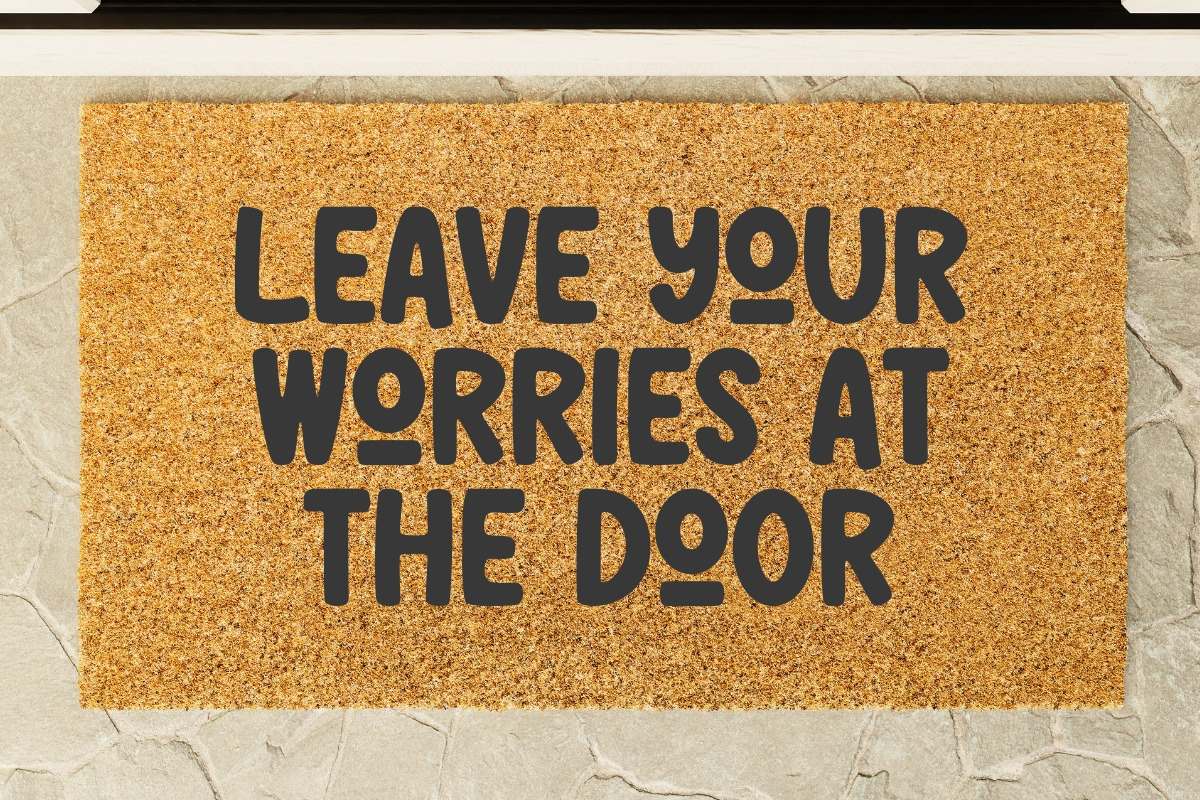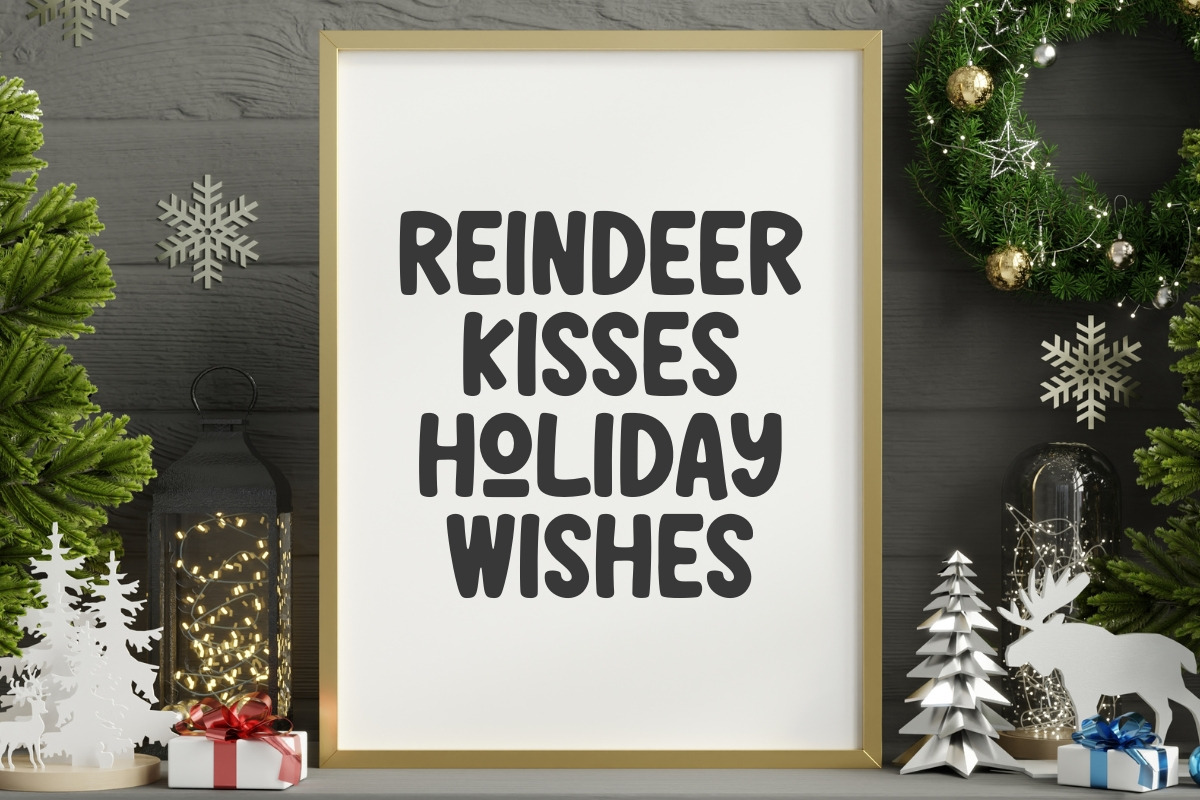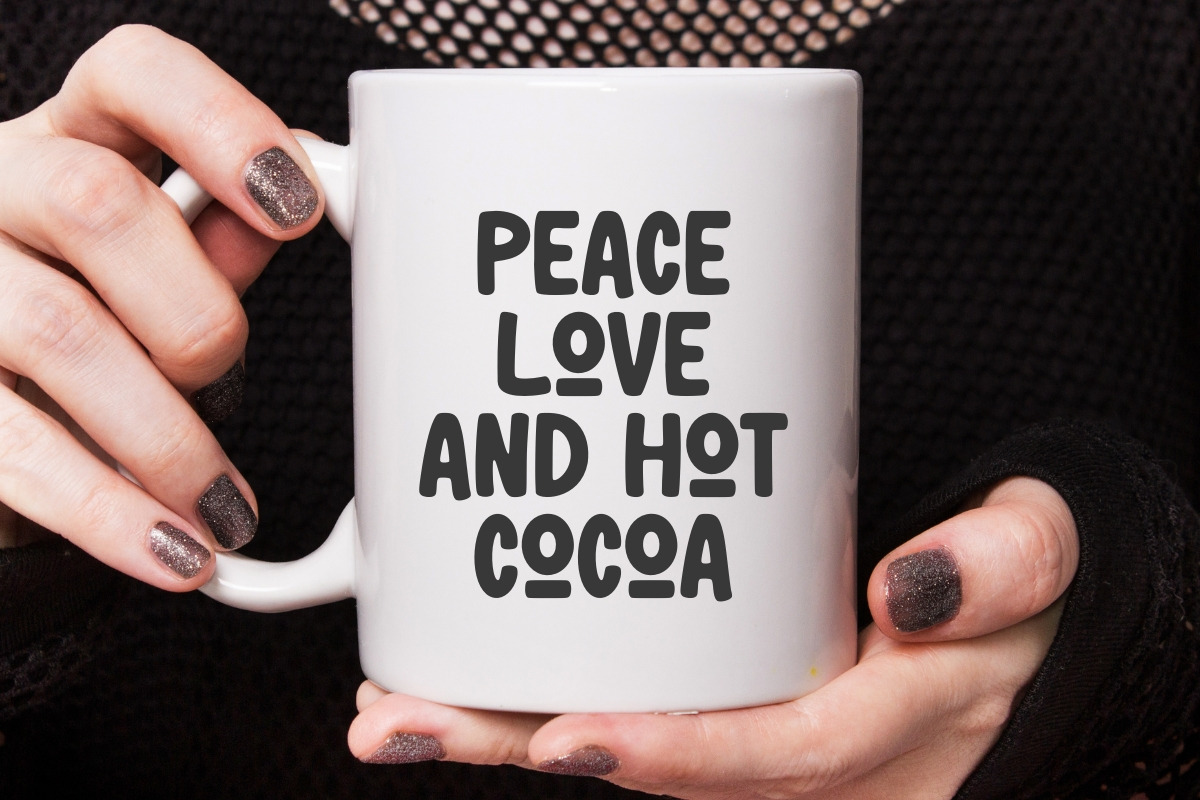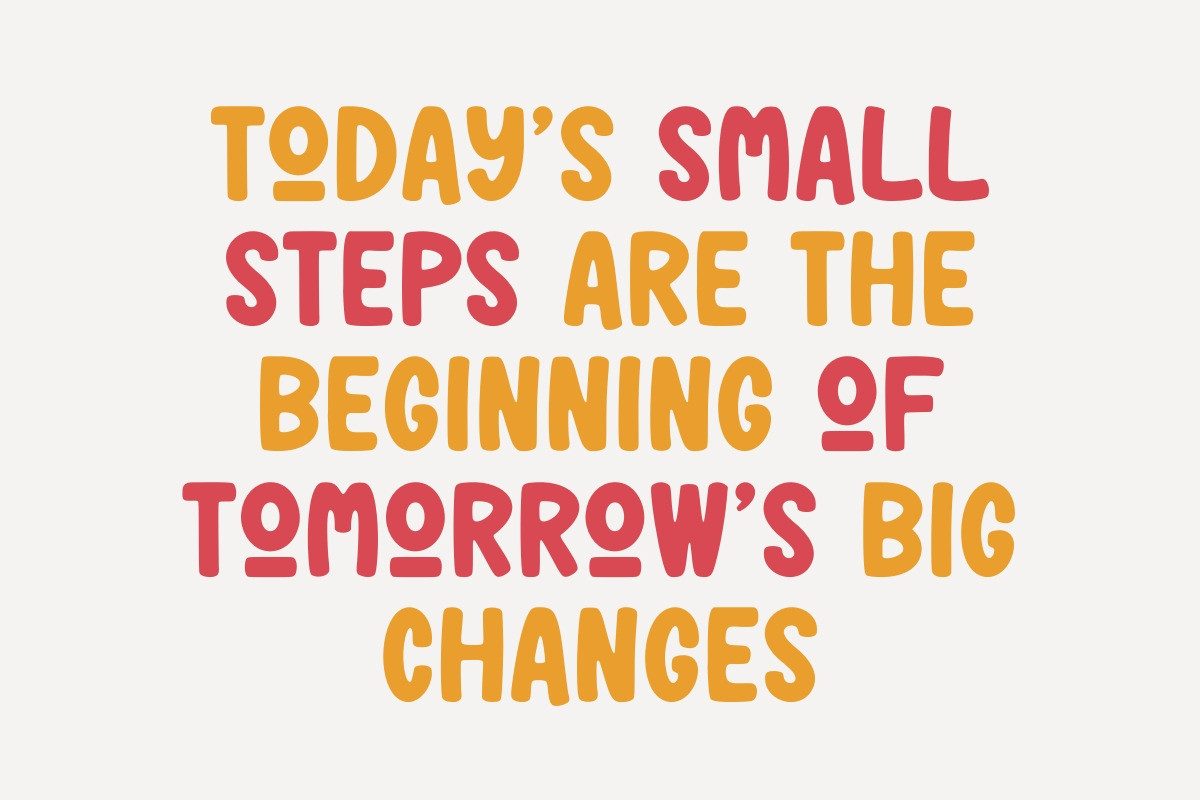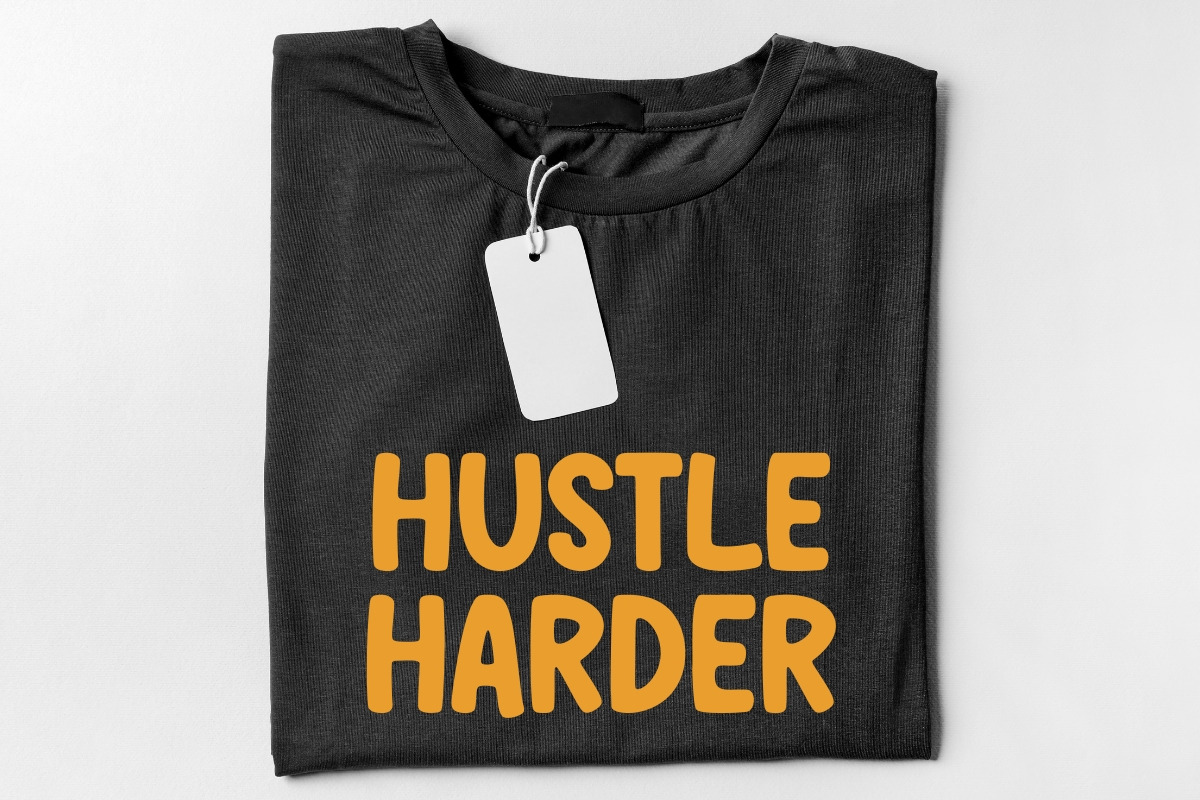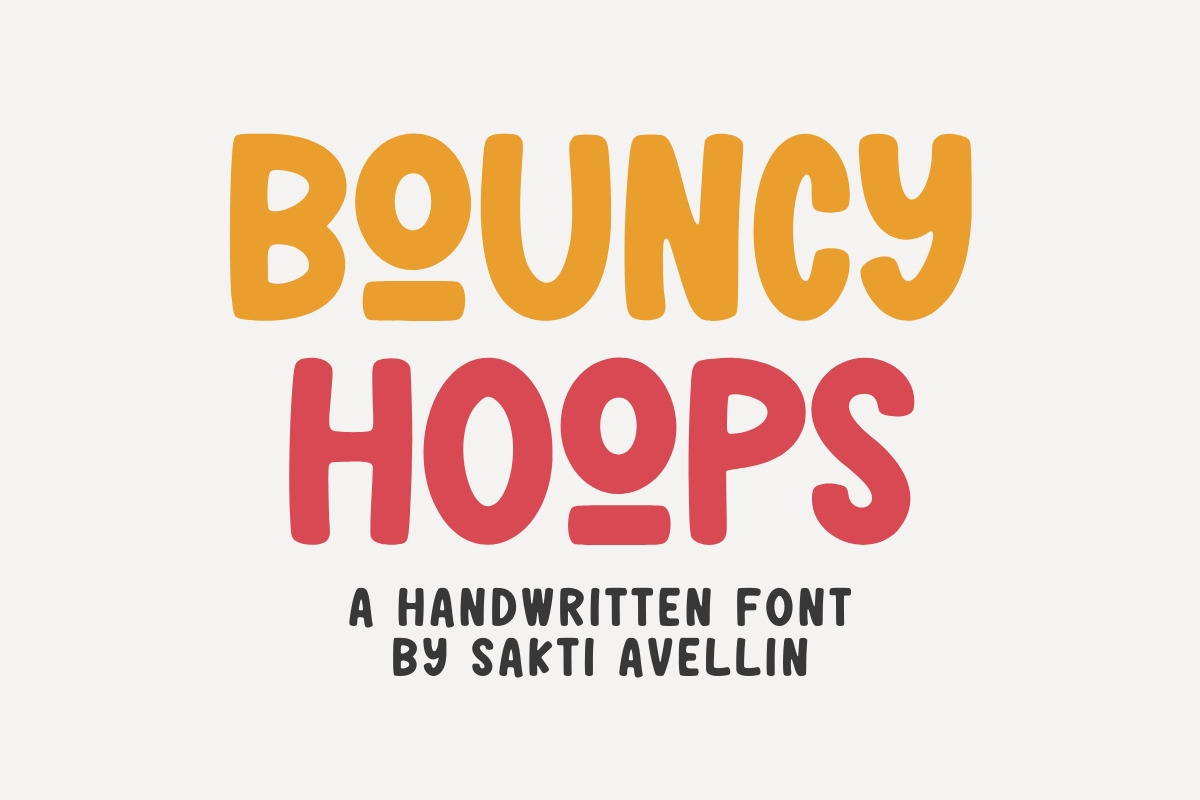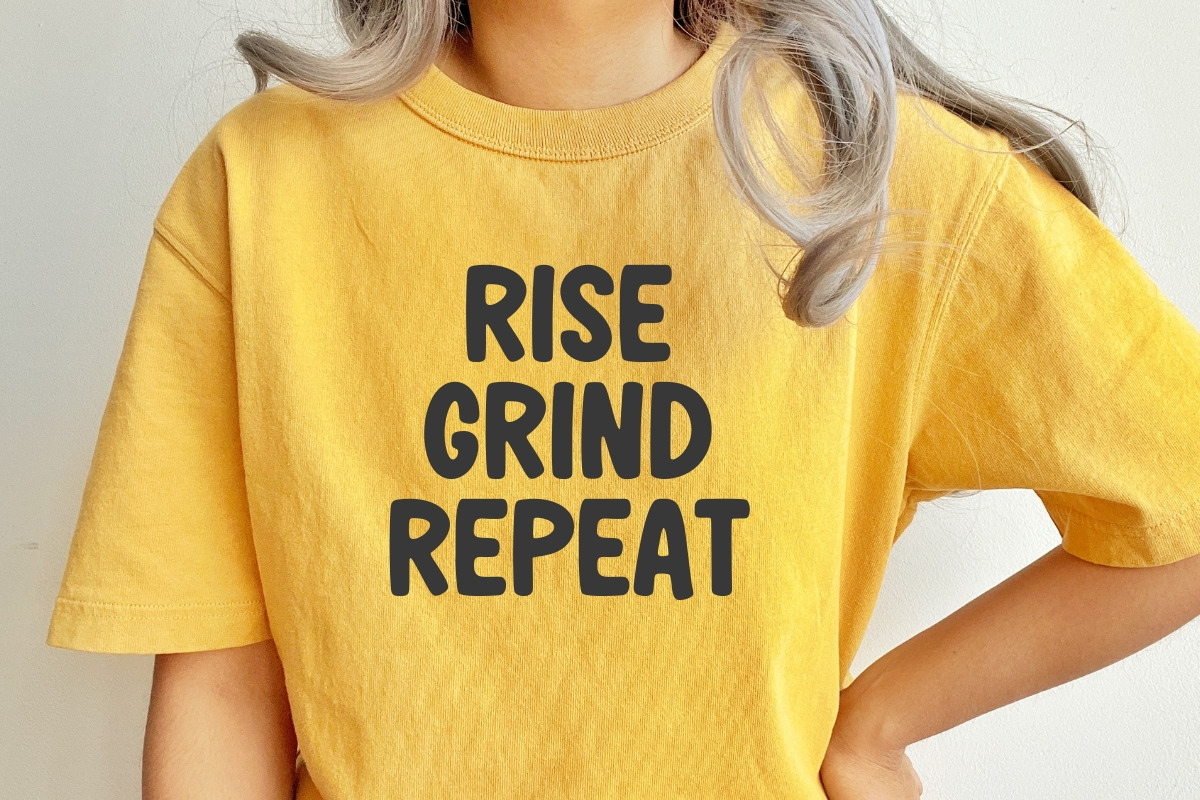
Bouncy Hoops - Handwritten Font
Bouncy Hoops is a super fun, energetic, and cute handwritten font that lives up to its name with a delightful, bouncy baseline and playful personality. This display font is a must-have for kids' branding, cheerful party invitations, whimsical logo design, nursery decor, and eye-catching social media graphics. Its thickness ensures it stands out as a powerful display typeface, making it easy to read while conveying a friendly, modern, and youthful vibe. Ideal for crafting projects and digital products aimed at a happy audience. Get this charming chunky font to add instant joy and motion to your designs!